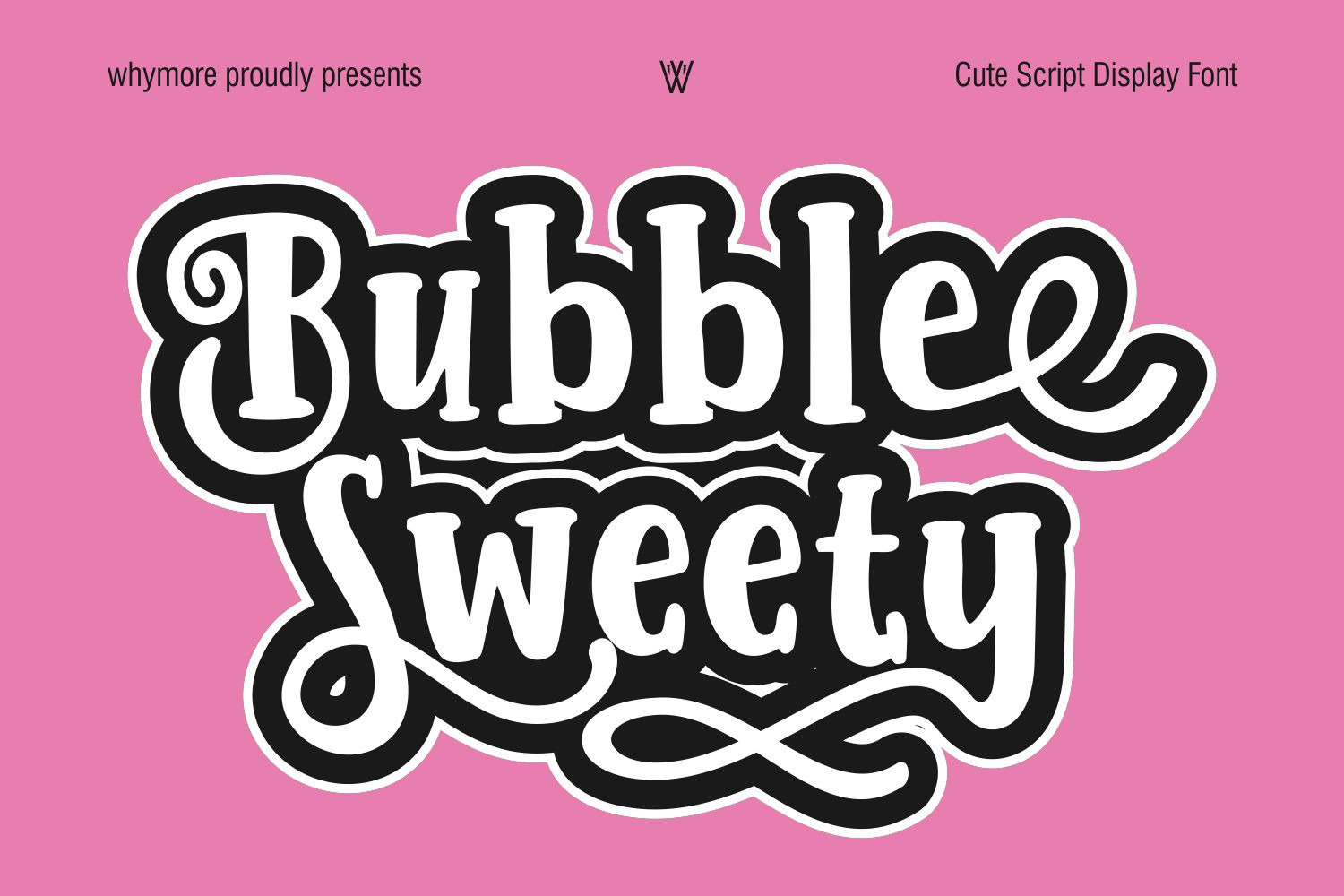
Bubble Sweety Cute Script Font
Bubble Sweety is a cute script display font featuring bold rounded letterforms, playful swashes, and a cheerful handcrafted style. Perfect for kids branding, t-shirt designs, stickers, packaging, logos, birthday invitations, social media, posters, crafts, and fun merchandise.